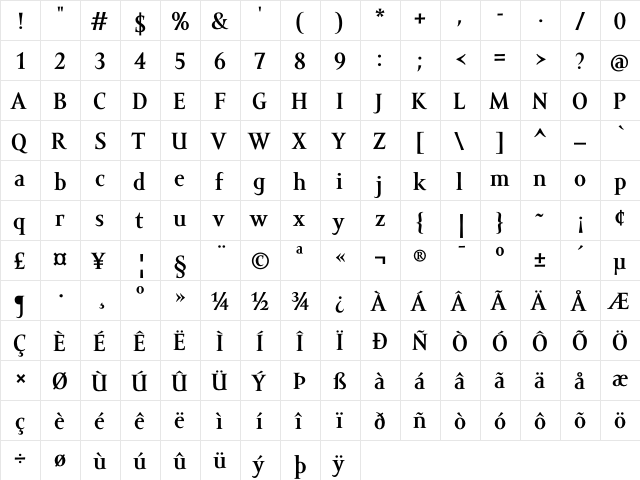
Amor Serif Pro Bold
| Designer | Frantisek Storm |
Design Context for Amor Serif Pro Typeface
Amor Serif Pro carries the refined structure of traditional serif typography, with bracketed terminals and considered proportions that communicate credibility and craft. Its bold stroke weight gives it real presence on the page.
Pro Tip: Set Amor Serif Pro with slightly loose tracking in headlines to let each letterform's detail read clearly at display sizes.